Type Project continues to transcend the conventional framework of the font maker
From the creation of a magazine-dedicated font for the design publication AXIS
Magazine, to the production of FitFont with freely combinable weight and contrast options, to its offerings for the City Font Project and of a range of font experimentation tools, Type Project aims to continue with its original approach to development.
Type that raises the value of objects and of people (1)
Type Project continues to transcend the conventional framework of the font maker
Starting with the typeface “AXIS Font”, which was created exclusively for the design publication AXIS Magazine, and then developing other one-of-a-kind productions, such as the local, everyday-life-rooted “City Font Project”, with its expressions of cultural background and dialect, and the “FitFont” service, which has made it possible to accommodate diverse needs with customized weights and contrasts, Type Project has continued to take on ever more challenging endeavors. While not as prolific in terms of font production as other makers, Type Project has been creating type characters that are steadily and surely spreading to the world. For the first installment of this series, we asked director Isao Suzuki to look back on his career, and to share with us Type Project’s way of thinking about fonts and their place in society, and the direction he envisions as font maker.
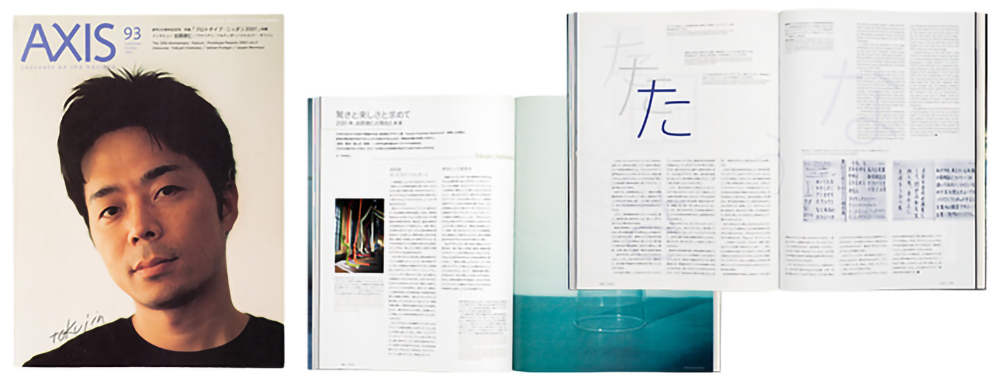
Before Type Project
Type Project continues to engage in unique projects that distinguish it from other font makers. What were the circumstances that led to Type Project’s founding? “I wasn’t particularly interested in typefaces when I was a child, actually. There were all sorts of influences from different fields that fed my growth during the ’70s and ’80s, including manga, animation and tokusatsu sci-fi dramas. I always wanted to be a manga artist.”
Suzuki attended Aichi Prefectural University of Fine Arts and Music, and became aware of the attraction of kanji characters as a medium, and as design. “Though I certainly didn’t make my choice of university with the idea of making typefaces in mind, in my junior year I met exchange students from China, and became aware of kanji as being a medium – I started seeing them as design. I became completely obsessed with various fascinating aspects of kanji, such as their origins, their basic structural principles, and the system of radicals. But I realized that that wasn’t going to be of any use to me when it came to getting a job, and it was just when I was starting to worry about what I would do with myself after graduating that I met Masahiko Kozuka, pioneering Japanese type designer, who had come to the university as a part-time lecturer. After that, I joined Adobe Systems, and that’s how I got my start in the typeface-designing profession.”
After working as a type designer at Adobe Systems for seven years, what was it that led you to found Type Project? “I had several reasons for doing it, but one of the main things that inspired me was at the Association Typographique Internationale event held in England in 1997, when I heard the type designer Jean François Porchez talk about making a new, exclusive font for Le Monde newspapers. I wondered then if there was anything in Japan that echoed the work done by Porchez, and I looked into the matter. I found that there were examples of large newspaper companies and publishing houses that had their own fonts in metal type, but almost none of them had digital fonts. When I learned that, I just knew I had to make exclusive fonts for specific media. And then I founded Type Project.”
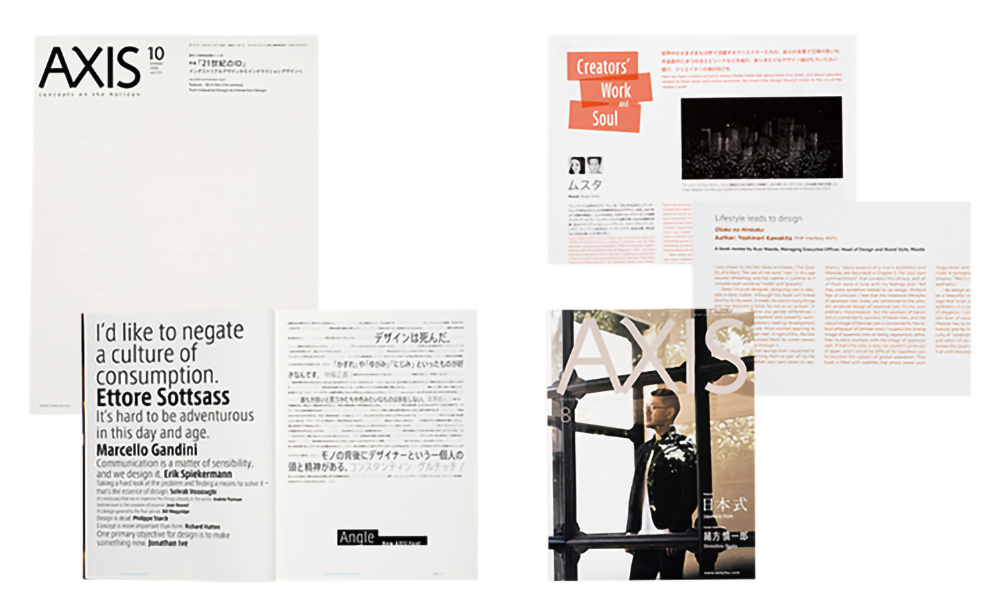
Right: From the August 2016 issue of AXIS. Even today, fifteen years after its release, AXIS Font Basic continues to be used for the magazine’s main text, while both Condensed and Compressed make frequent appearances in cover and article titles. Suzuki says that AXIS Latin Pro has made it easier to work with italics and the like in English text.
The birth and development of AXIS Font
After the event in 1997, Suzuki focused his energies on the creation of a media-exclusive font, which he then brought to the design publication AXIS Magazine. “The first prototype I made was different from today’s AXIS Font. It was already a sans-serif with an exclusively horizontal layout, but it was something that felt a bit forced for a Japanese font and seemed to take over the baseline system. But the very idea of exclusive fonts alone generated a lot of excitement. And then, when I brought in my second prototype, which wasn’t really that different from today’s AXIS Font, the response was quite good, so I pushed forward with creation to complete it in time for AXIS Magazine’s twentieth anniversary.”
Suzuki explains his choice of AXIS for his proposal of a new font: “When I looked into what media-exclusive fonts were in use in Japan, I found that it was something that only large newspaper companies and publishing houses tended to spend money on. There were almost no reports of their being adopted by magazines or the like. There were many magazines to choose from, but the only one I felt would be interested in an exclusive font was AXIS. Having made a thorough study of AXIS Magazine, from the latest edition all the way back to its early issues, Suzuki considered ‘neutral font’ and ‘airy font’ as keywords for this project.
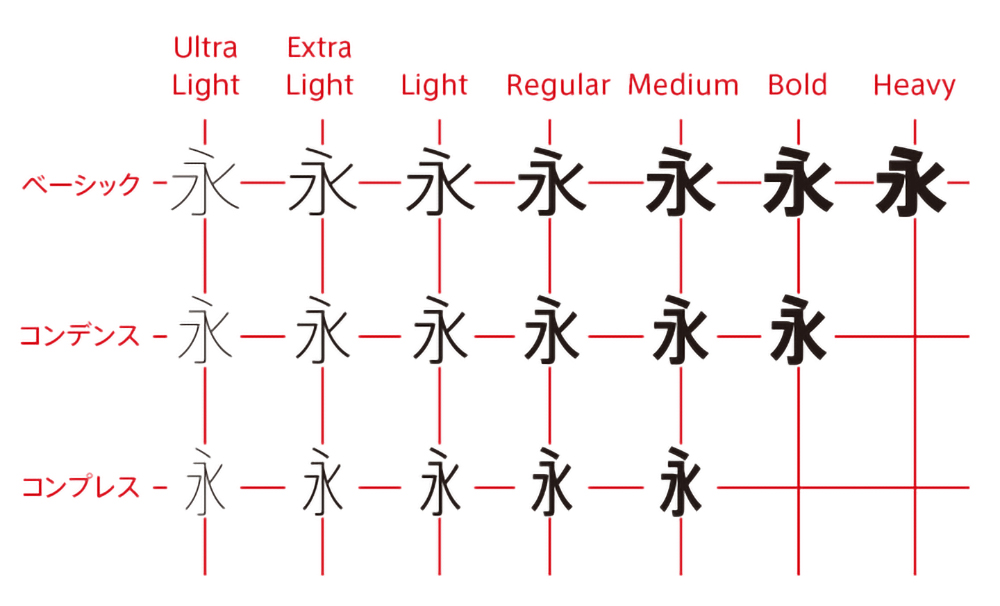
Type Project’s starting point, and what may also be termed its “main trunk”, is the Japanese sans-serif typeface “AXIS Font”. According to Suzuki, while Basic was released in 2001, followed by Condensed in 2007 and Compressed in 2009, the plan from the early stages was to create a weight-plus-width typeface, and to later expand that even further with FitFont.
Moreover, he explains, at that time, he already had a plan in mind for AXIS Font that would connect to its current lineup. “In addition to developing different weights, from the time of the first prototype, I had the plan to make the character width variations of Basic, Condensed and Compressed. With the meaning of the word ‘axis’ in mind, I had the idea of making a Japanese font that had more than one axis.”